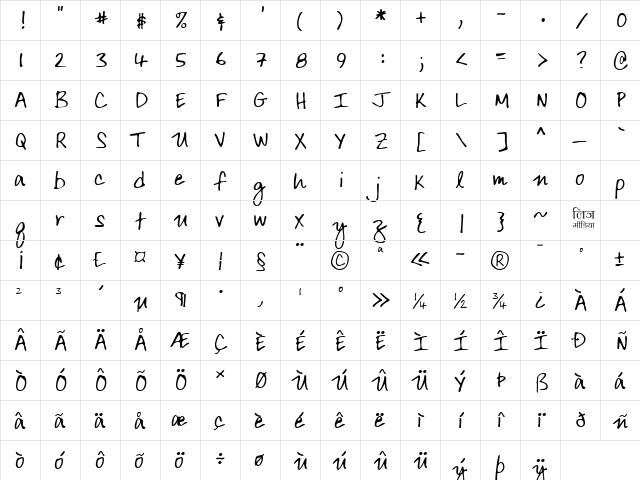
LEHN015 Regular
Design Context for LEHN015 Typeface
LEHN015 is a composed and adaptable typeface that performs quietly and consistently across a wide range of design contexts.